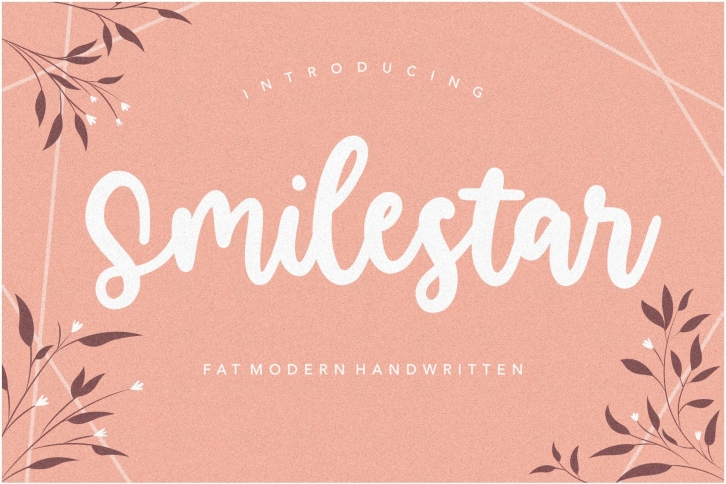
Smilestar is a Fat Modern Handwritten is a great font that was designed by Balpirick. Imagine the amount of combinations you can create using this font! The archive is 16.34 MB and it was released on November 6, 2020. Smilestar is a Fat Modern Handwritten looks beautiful on wedding invitations, greeting cards, logos, posters, labels, t-shirt designs, logos, business cards and is perfect for use in ink or watercolor works, fashion, magazines, packaging and food menus, children's books and more!